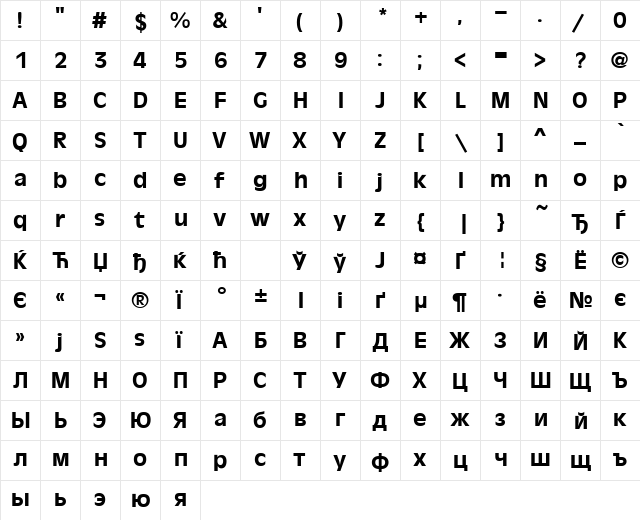
Oliver Bold
Design Context for Oliver Typeface
Oliver is a composed and adaptable typeface that performs quietly and consistently across a wide range of design contexts. Its bold stroke weight gives it real presence on the page.
Pro Tip: Pair Oliver with a font of contrasting weight or personality to build a more expressive typographic hierarchy.